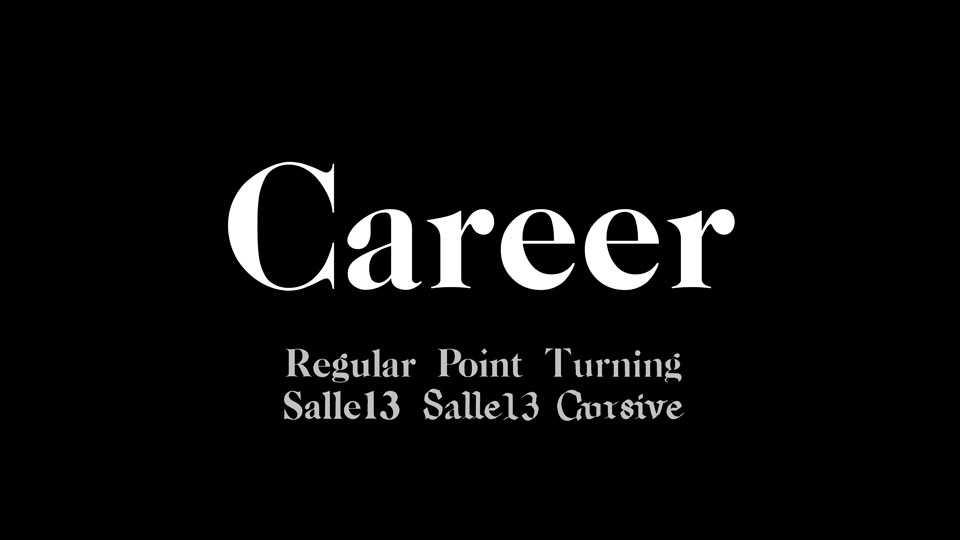
Download Career typeface, a chunky extra bold serif font family in 5 styles, inspired by Caslon Old Face type. Career has very high contrast between the hairline thin strokes and the fat main strokes, popular during the seventies.
Designer: Antoine Gelgon